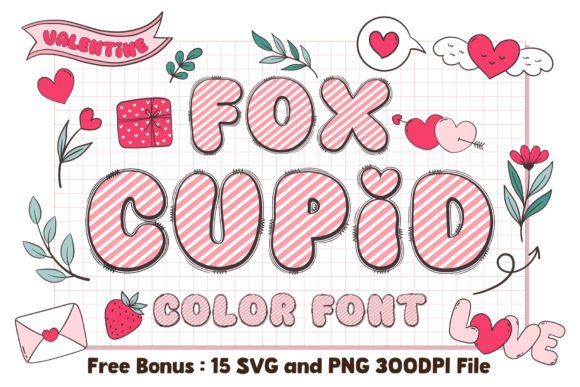
Infuse Your Projects with Whimsy Using the Fox Cupid Font
There are times in the design process when you need a typeface that does more than just convey information; you need one that sparks an emotional connection. We often spend hours searching for that perfect aesthetic that feels both professional and deeply personal, especially when creating assets for clients or our own brands. If you have been looking for a way to add a distinct splash of color and personality to your work without relying solely on complex design software, the solution might just lie in the evolution of typography. Enter the era of color fonts, and specifically, a charming addition to the creative market that promises to change how you view display type.
Understanding the Appeal of Color Typography
For decades, designers have been constrained by monochromatic text, relying on outlines, shadows, and manual coloring to add depth to their headlines. However, the introduction of SVG (Scalable Vector Graphics) technology into font files has revolutionized this space. Fox Cupid is a prime example of this innovation, standing out as a cute and fun color display font that carries its own aesthetic data. Unlike standard vector fonts where you apply a color swatch, this typeface arrives pre-rendered with textures, gradients, and vibrant hues. This means when you type the letter "A," it doesn't just appear as a flat shape; it appears exactly as the designer intended, complete with intricate details that would normally require advanced illustration skills to achieve manually.
The visual appeal of Fox Cupid lies in its authentic, handcrafted feel. It captures a sense of warmth and affection that sterile, corporate fonts simply cannot replicate. When you look at the glyphs, you see a playful interaction of shapes and colors that feels organic. This makes it an incredibly powerful asset for projects that require a human touch. It bridges the gap between illustration and typography, allowing you to "write" with images.
Practical Applications for Modern Creators
So, where does a font like Fox Cupid actually fit into your workflow? The versatility of a high-quality color font is broader than many realize. Because it commands attention immediately, it is best suited for display purposes where brevity and impact are key.
Invitations and Stationery: For those in the wedding industry or selling handmade goods on platforms like Etsy, this font is a game-changer. It allows you to create gorgeous invitations and beautiful stationary art without needing to commission custom watercolor lettering for every order. The built-in design elements ensure that your greeting cards express affection and warmth instantly upon first glance.
Digital Marketing and Social Media: In the fast-paced world of social media, stopping the scroll is the primary objective. Eye-catching social media posts are no longer optional; they are mandatory. Using Fox Cupid for Instagram stories, Pinterest pins, or Facebook banners can significantly increase engagement. The colorful display nature of the font draws the eye, making it perfect for short, punchy headlines that need to stand out against a busy background.
Branding and Packaging: While a color font might not be suitable for long-form body text, it is exceptional for brand accents. Imagine a bakery logo or a children’s clothing brand that uses this typeface for their wordmark. It immediately communicates a specific brand personality—playful, sweet, and approachable. In packaging design, you can use it for headers on boxes or labels to create a memorable unboxing experience.
Maximizing Value with Bonus Assets